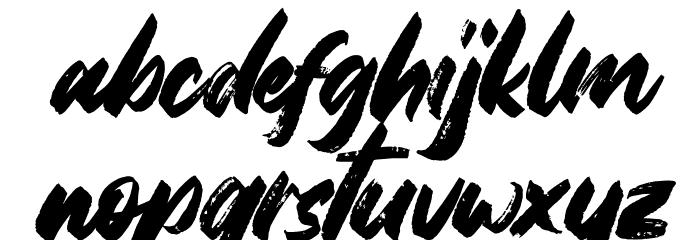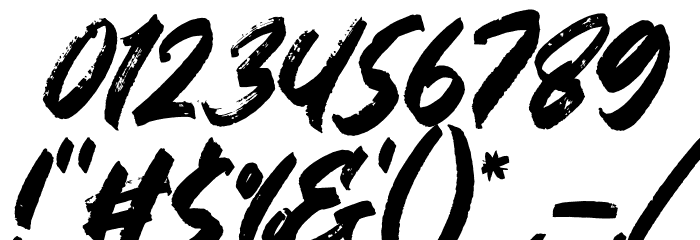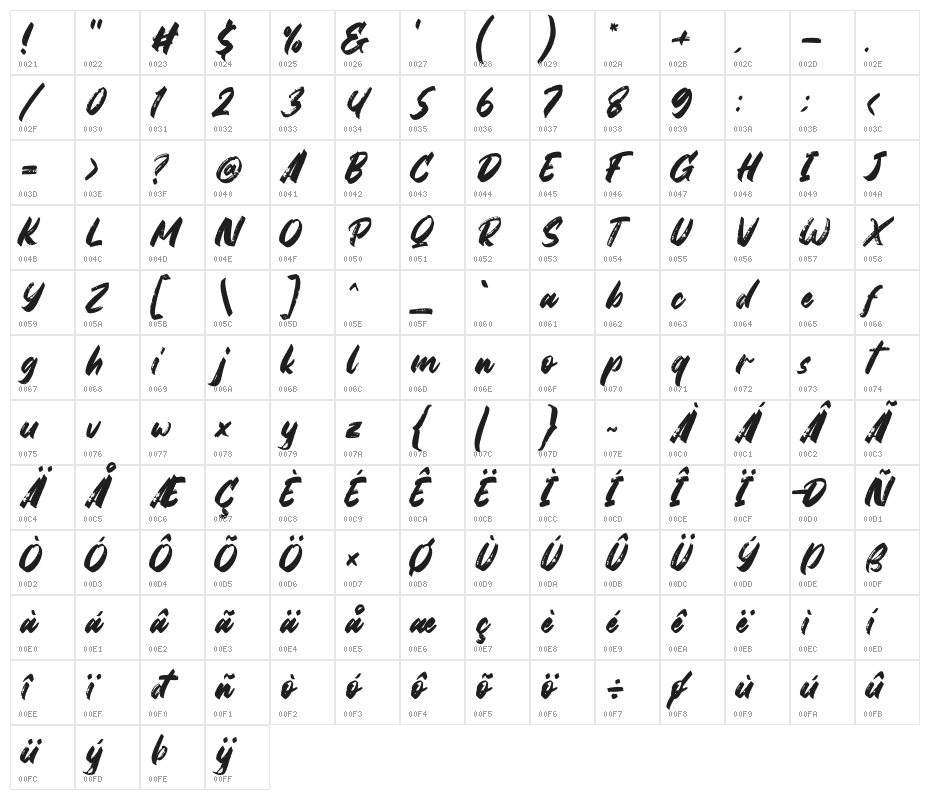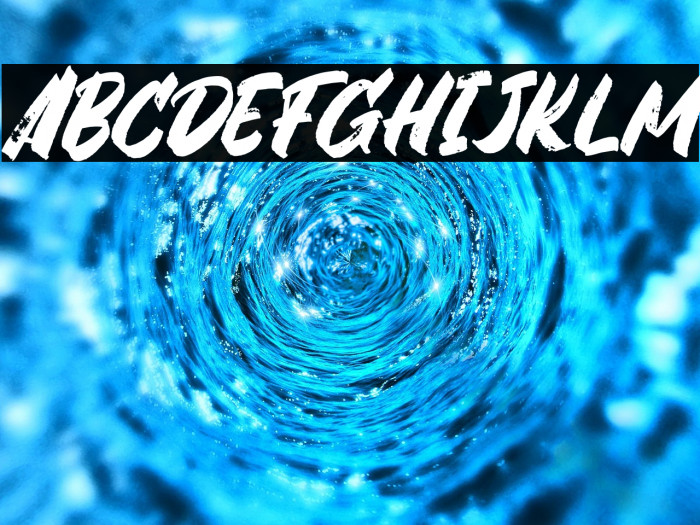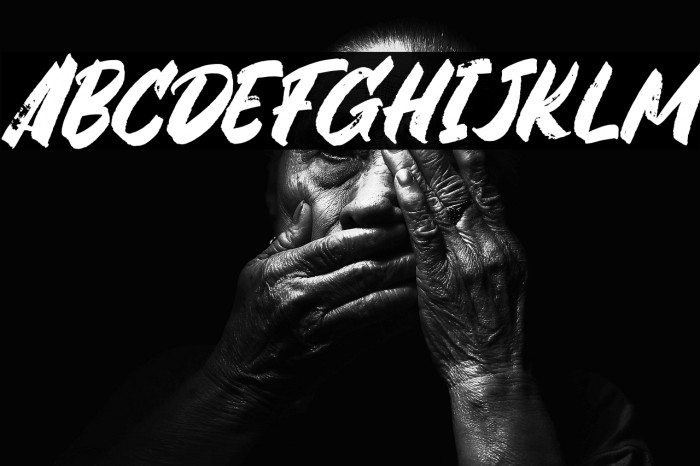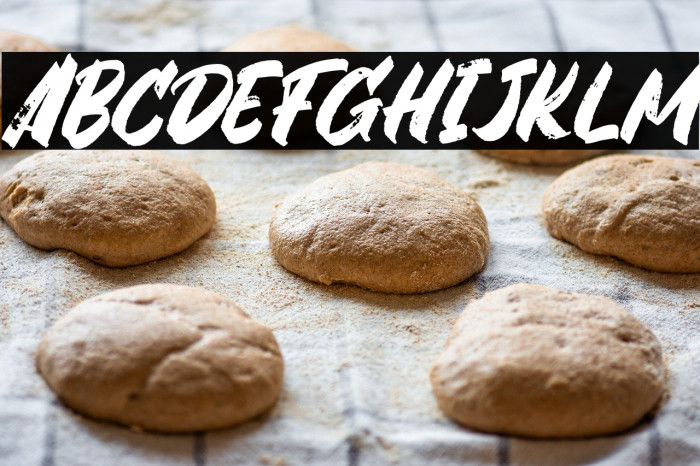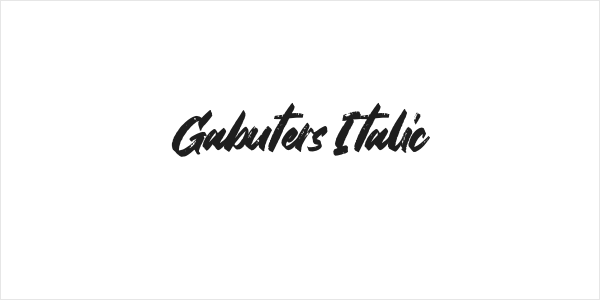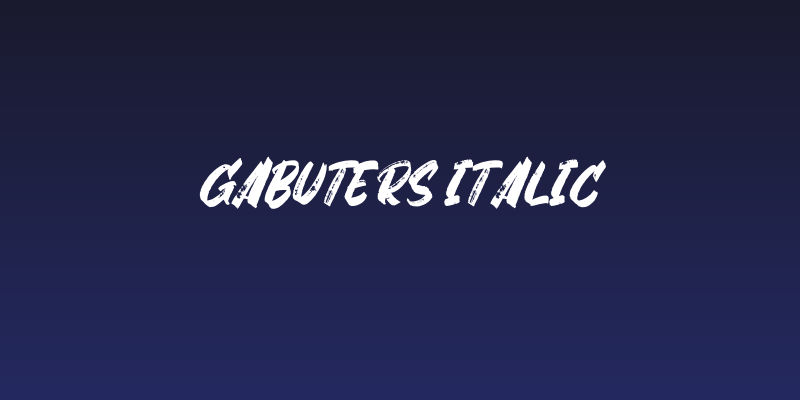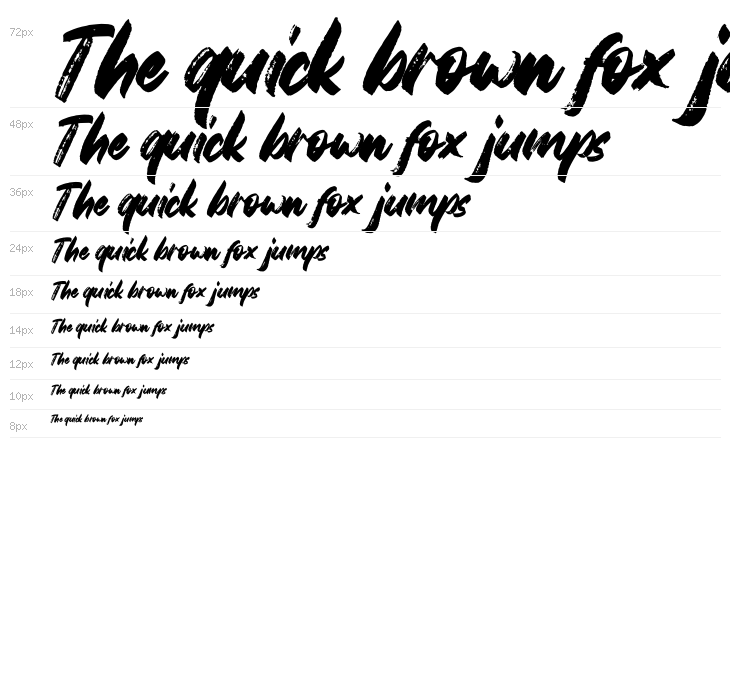
Gabuters Italic Font
This font features a bold and expressive brush style, characterized by its dynamic and energetic strokes. The letters have a hand-painted appearance, with varying thicknesses that add a sense of movement and vitality. The uppercase and lowercase letters are designed with a slight slant, enhancing the italicized look. The numbers and special characters maintain the same lively and bold aesthetic, making the font suitable for eye-catching designs. The rough edges and uneven texture give it a raw, artistic feel, perfect for projects that require a personal touch.
A bold, brush-style italic font with dynamic strokes and a hand-painted look.
- Proposed Projects: Ideal for posters, branding, packaging, and creative projects that need a bold, artistic touch.